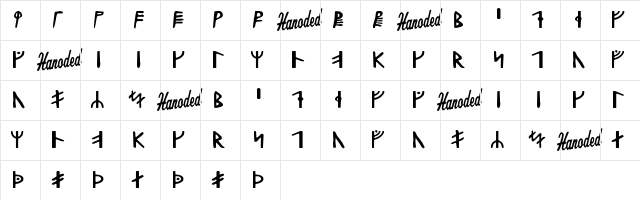
Harald Runic DEMO Regular Free Font
Harald Runic DEMO Regular
Foundry: David Kerkhoff
Designer: David Kerkhoff
Design Context for Harald Runic DEMO
Harald Runic DEMO is a composed and adaptable typeface that performs quietly and consistently across a wide range of design contexts.
Who designed the Harald Runic DEMO Regular font?